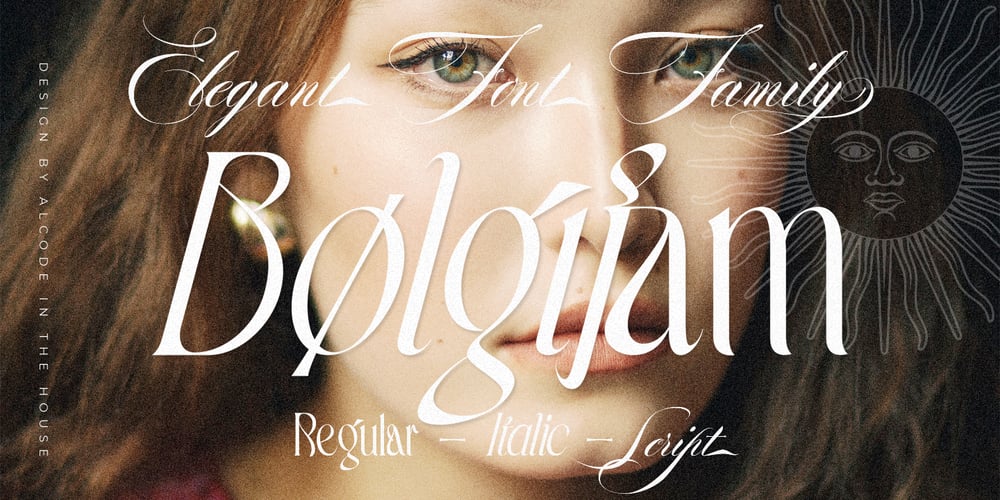
Bolgifam
Bolgifam font
Bolgifam Font Family was designed by Sukjana Almunandar and published by Alcode. Bolgifam contains 3 styles and family package options. Bolgifam Family is a luxury and elegant font pair that will bring a unique style and a trendy look to your designs.Comes with two style font sans modern regular – italic and one Classic Calligraphy Typeface with trending ligatures and special character, this will make Bolgifam family usable in all design projects and work perfectly to pair with any other font.With this family elegant styles you can create design such as wedding media, book covers, greeting cards, logos, branding, business cards and certificates, even for any design work that requires a classic, formal or luxurious look.Try Bolgifam Family, Enjoy the richness of OpenType features and let her fun and elegant excitement make you happy and enhance your creativity! You can use this font very easily.• Multilingual Support